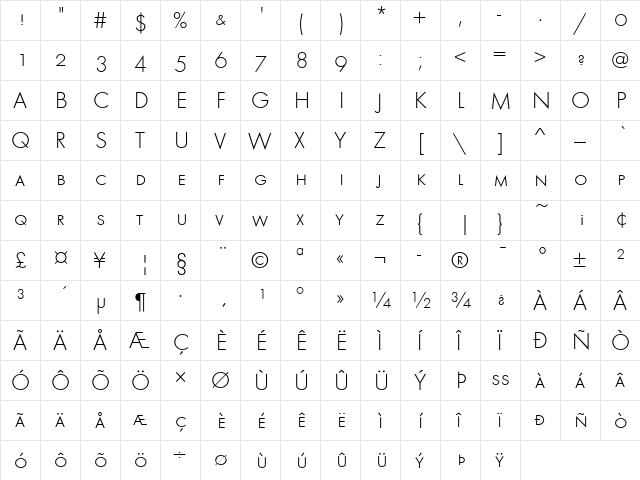
URW Furnerius SC T Light Light Font Preview
URW Furnerius SC T Light Light
URW Furnerius SC T Light Light Font Details
Design Context for URW Furnerius SC T Light Typeface
URW Furnerius SC T Light takes a measured approach to typography — its balanced proportions and neutral character make it a reliable workhorse for both digital and print work. Its slender proportions lend an understated elegance to any composition.